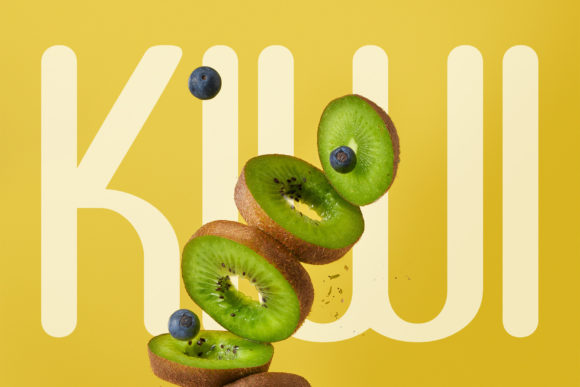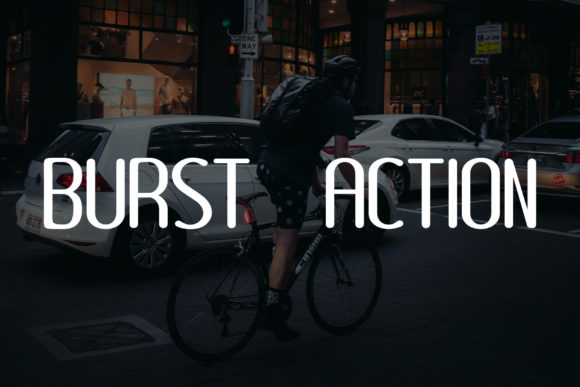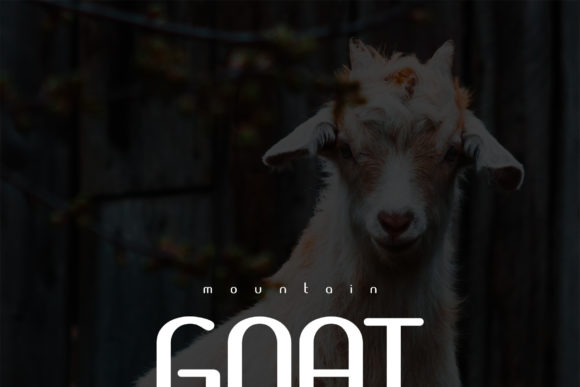
Discover the Marvelous England Font: Elevate Your Designs with its Versatile Charm
Are you on the hunt for a font that can add a touch of sophistication and playfulness to your designs? Look no further than the England Font! This marvelous sans serif font is making waves in the design community, and for good reason. Its well-assorted letters make it incredibly versatile and fun to use, allowing you to bring your most creative ideas to life.
What Makes England Font So Special?
England Font boasts a unique blend of modernity and elegance, making it perfect for a wide range of design projects. Whether you’re working on a logo, brochure, or social media graphics, this font is sure to make your designs stand out. Its clean lines, simple shapes, and balanced proportions create a visually appealing aesthetic that’s both contemporary and timeless.
One of the standout features of England Font is its versatility. With a wide range of letters and characters to choose from, you can create unique and eye-catching text arrangements that reflect your brand’s personality. Whether you’re looking for a bold and playful look or a more subtle and sophisticated feel, England Font has got you covered.
How to Use England Font in Your Designs
• Pair it with bold colors: England Font looks amazing when paired with bright, bold colors. Try using it with a vibrant color scheme to create eye-catching graphics that grab attention.
• Experiment with typography: England Font’s versatility makes it perfect for experimenting with different typography styles. Try using it in combination with other fonts to create unique and interesting text arrangements.
• Use it for headlines and titles: England Font’s bold and playful aesthetic makes it perfect for headlines and titles. Use it to add a touch of personality to your designs and make your text stand out.
Why Designers and Crafters Love England Font
England Font has quickly become a favorite among designers and crafters, and it’s easy to see why. Here are just a few reasons why:
• Unique and eye-catching: England Font’s unique blend of modernity and elegance makes it a standout in any design. Its bold and playful aesthetic is sure to grab attention and leave a lasting impression.
• Versatile and flexible: England Font’s versatility makes it perfect for a wide range of design projects. Whether you’re working on a logo, brochure, or social media graphics, this font is sure to adapt to your needs.
• Easy to use: England Font is incredibly easy to use, making it perfect for designers of all skill levels. Its clean lines and simple shapes make it easy to read and understand, even at small sizes.
In conclusion, England Font is a marvelous sans serif font that’s sure to elevate your designs to the next level. Its well-assorted letters make it incredibly versatile and fun to use, allowing you to bring your most creative ideas to life. Whether you’re a designer, crafter, or simply someone who loves to create, England Font is a must-have in your font collection. So why wait? Add England Font to your designs today and notice how it makes them stand out!
With its unique blend of modernity and elegance, England Font is the perfect choice for anyone looking to add a touch of sophistication and playfulness to their designs. So go ahead, get creative, and see what amazing things you can create with England Font!